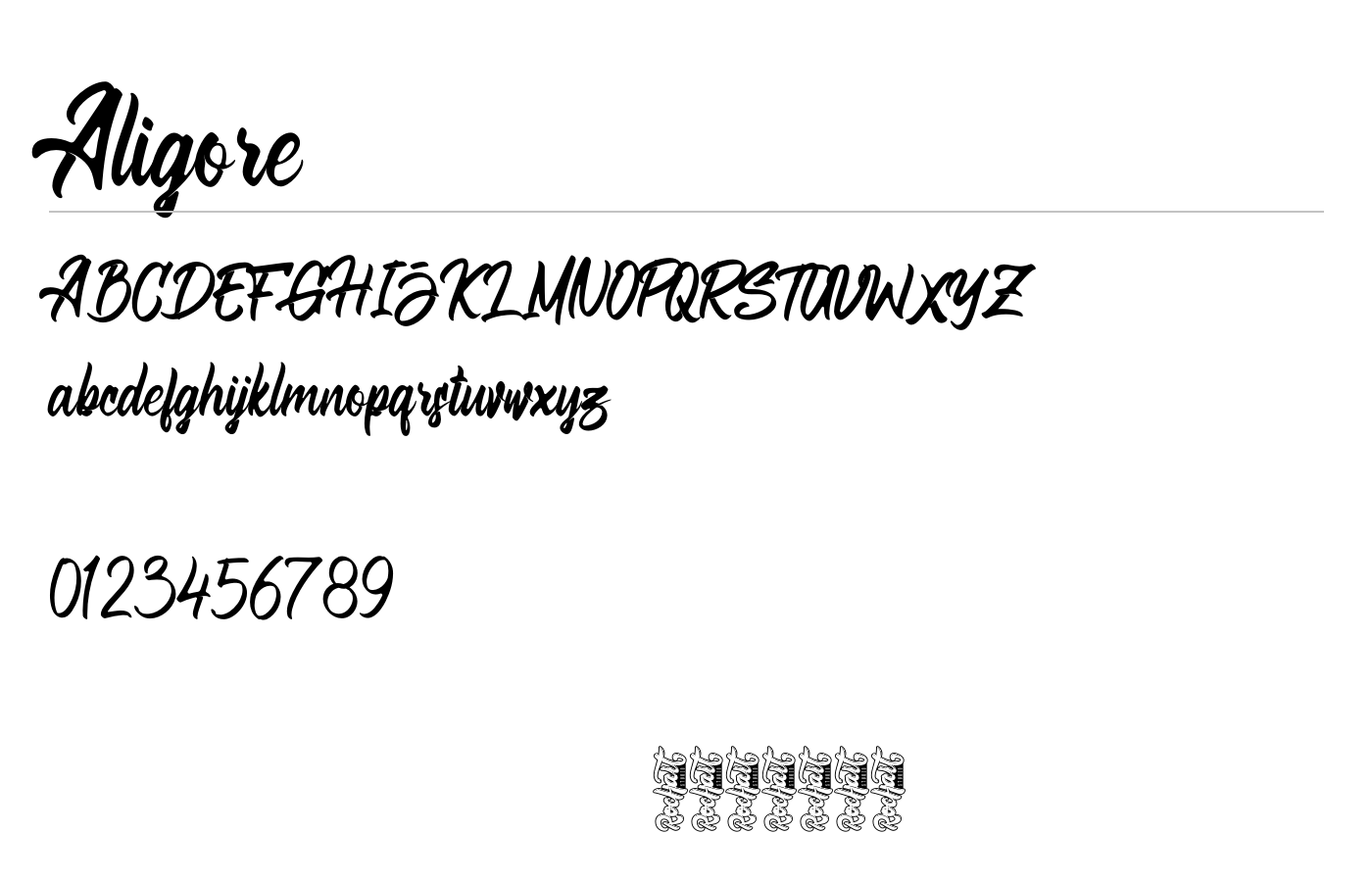
Aligore is a stylish script font that combines elegance with a playful, handwritten feel. Its smooth, flowing strokes and moderate contrast give it a lively yet refined personality, making it ideal for branding, logos, and creative projects that seek a personal and approachable touch. This font shines in designs where a handwritten flair adds charm and character, such as invitations, packaging, and casual editorial layouts.
Aligore Font
About Aligore Font